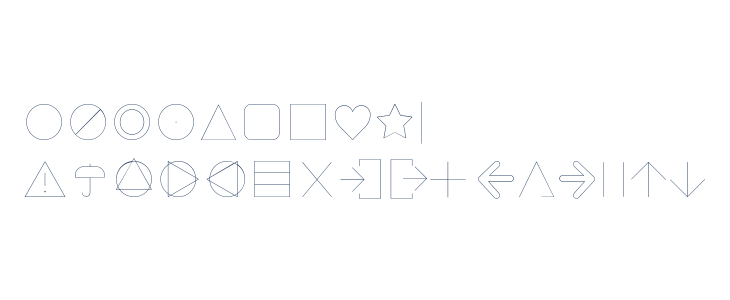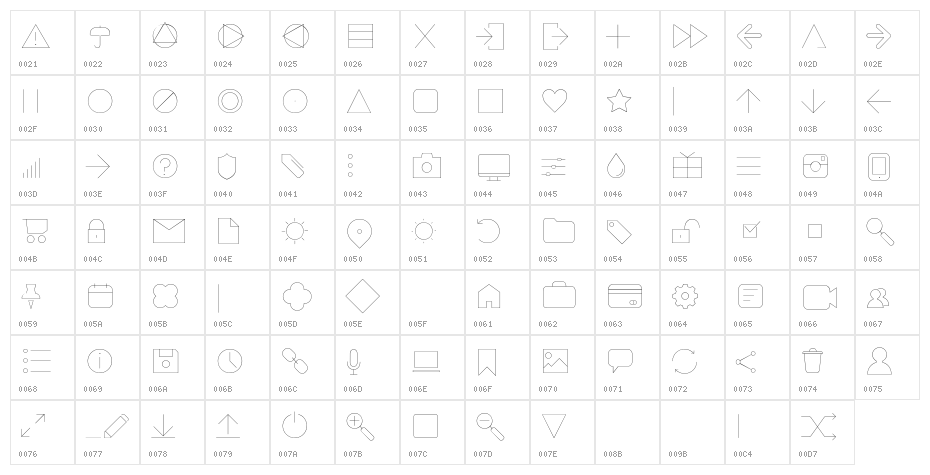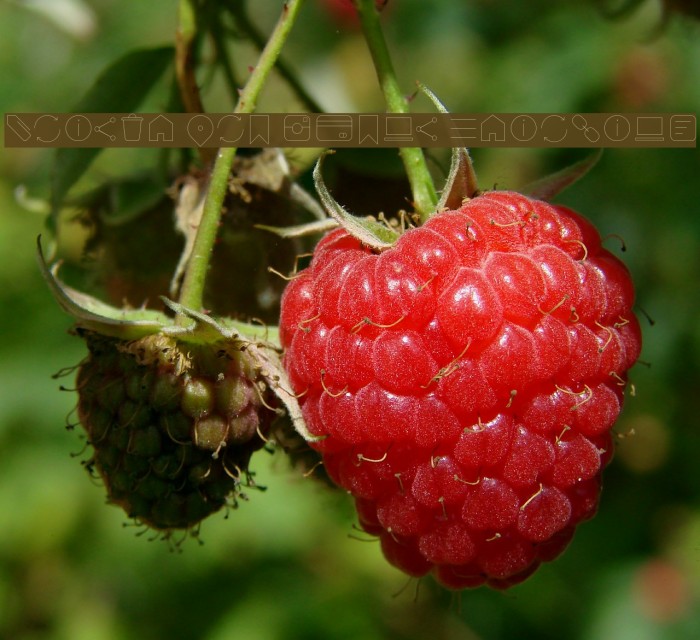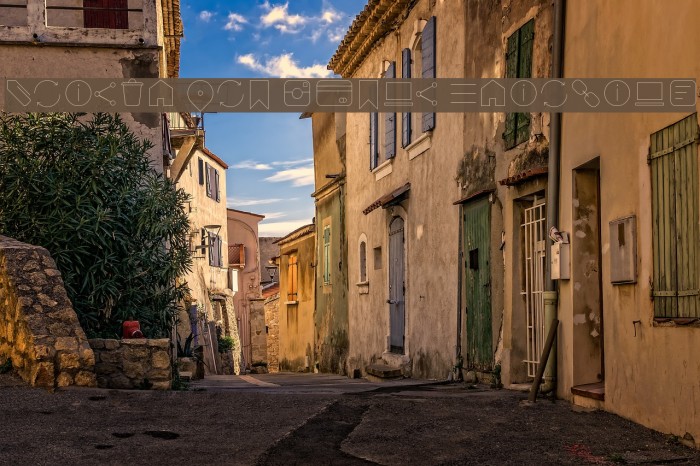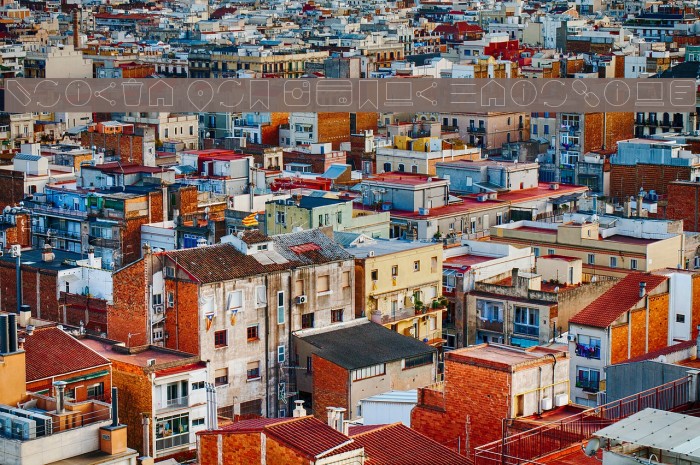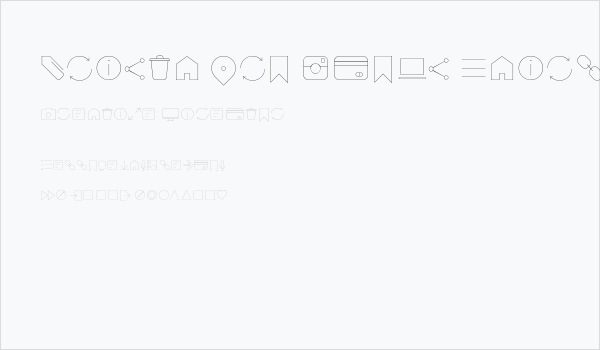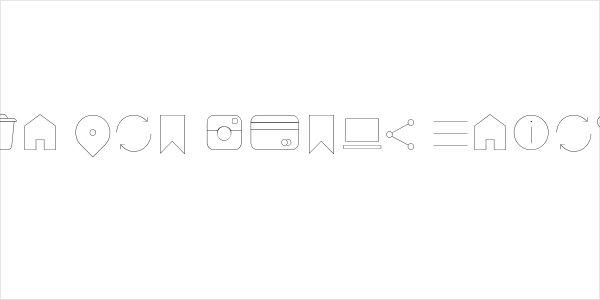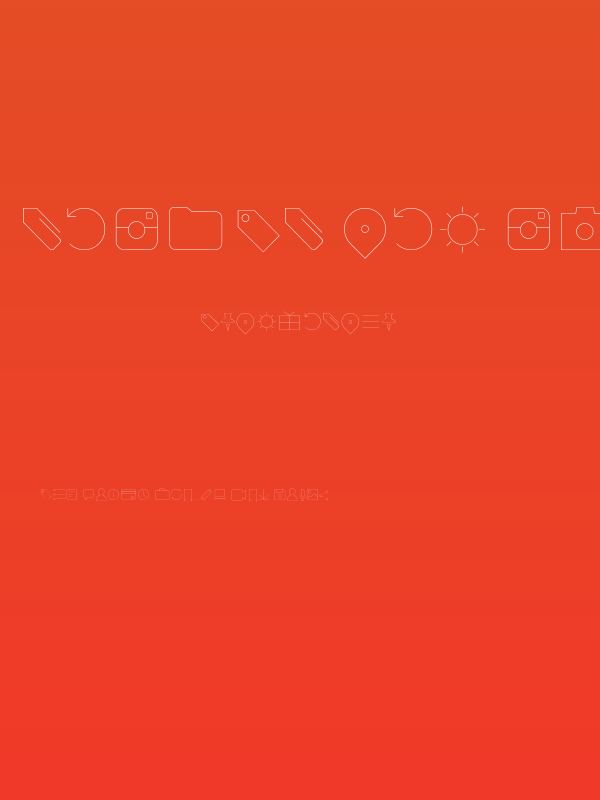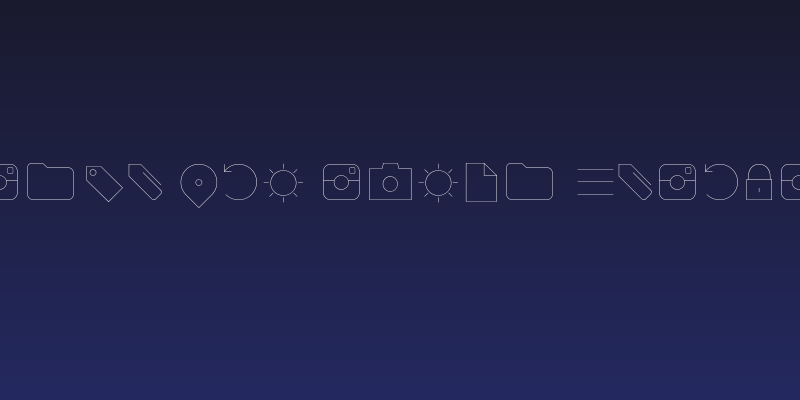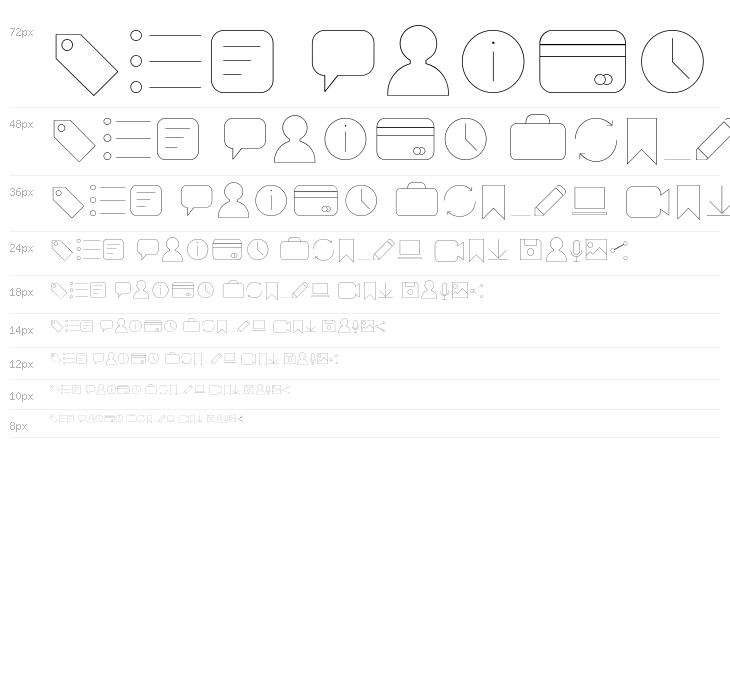
Arista Pro Icons Hairline Font
Arista Pro Icons Hairline Description
A set of ultra-thin, geometric line icons with consistent stroke weight, rounded corners, and minimalistic design, suitable for modern digital interfaces.
| Overall Style | Modern, Minimalist |
| Use Case | Icons for interfaces, buttons, toolbars, navigation. |
| Proposed Projects | Mobile apps, web UI, dashboards, wireframes, presentations. |